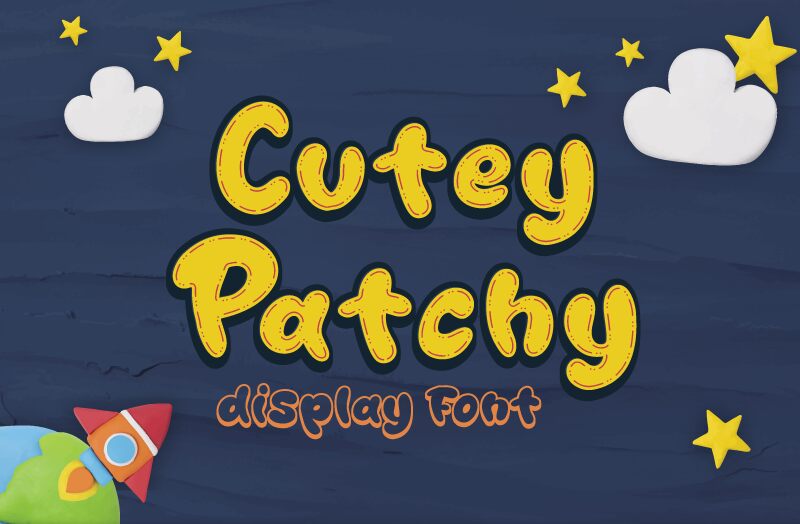
Cutey Patchy Display
Cutey Patchy Display, designed by Fadli Ramadhan Iskandar, is a bold and cartoon-style display font perfect for projects that require a unique and fun look. Its whimsical letterforms are ideal for everything from children's books to quirky logos and titles.